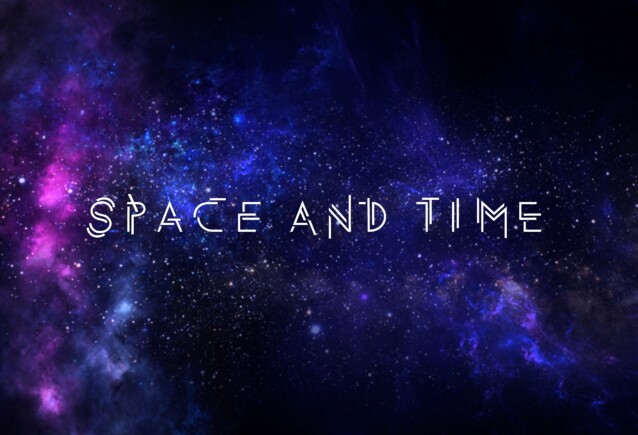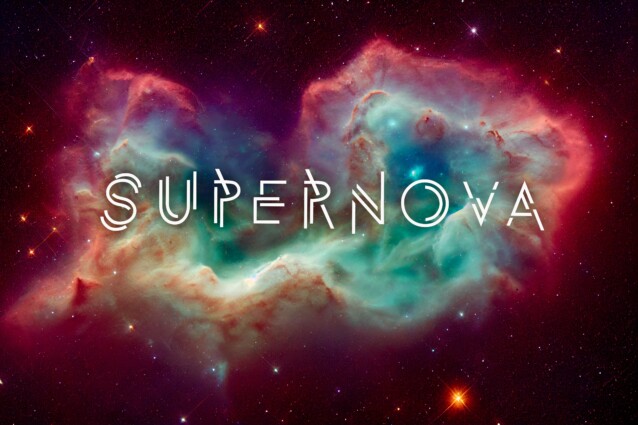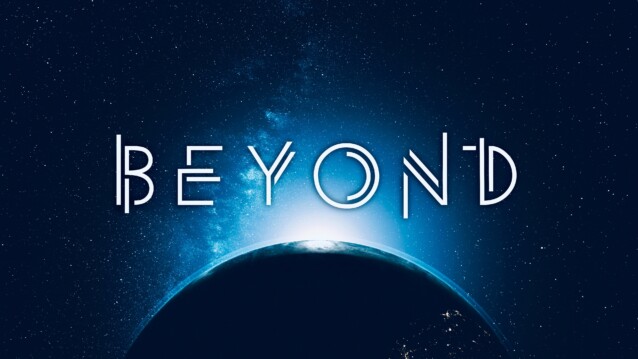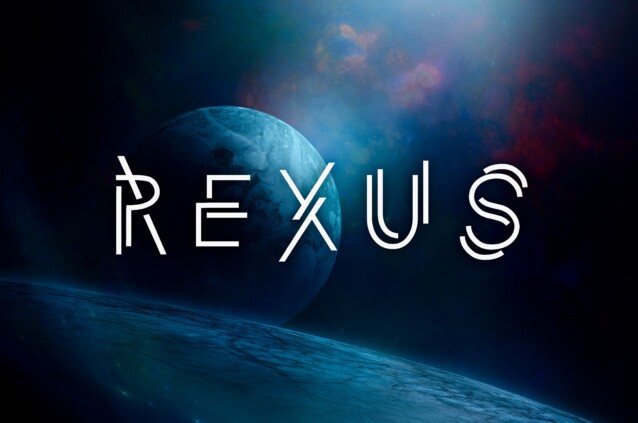
Rexus Font
Rexus Font is a modern scifi futuristic theme font designed by JoannaVu, with it’s bold and wide character it can gives a strong powerful impact. Consists of uppercase, lowercase, numbers, punctuation, special characters and Greek letters. For ideal results, mix uppercase and lowercase together.